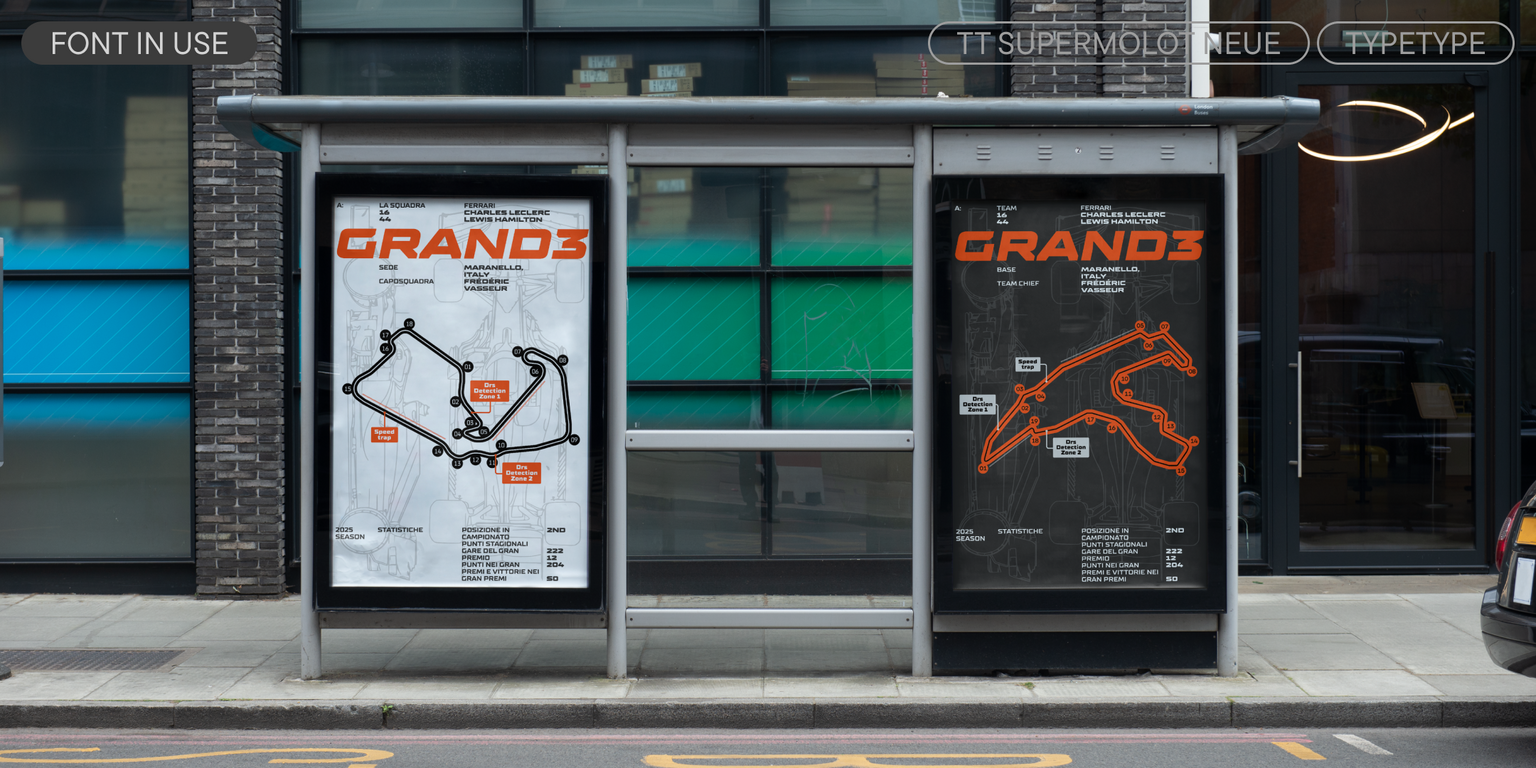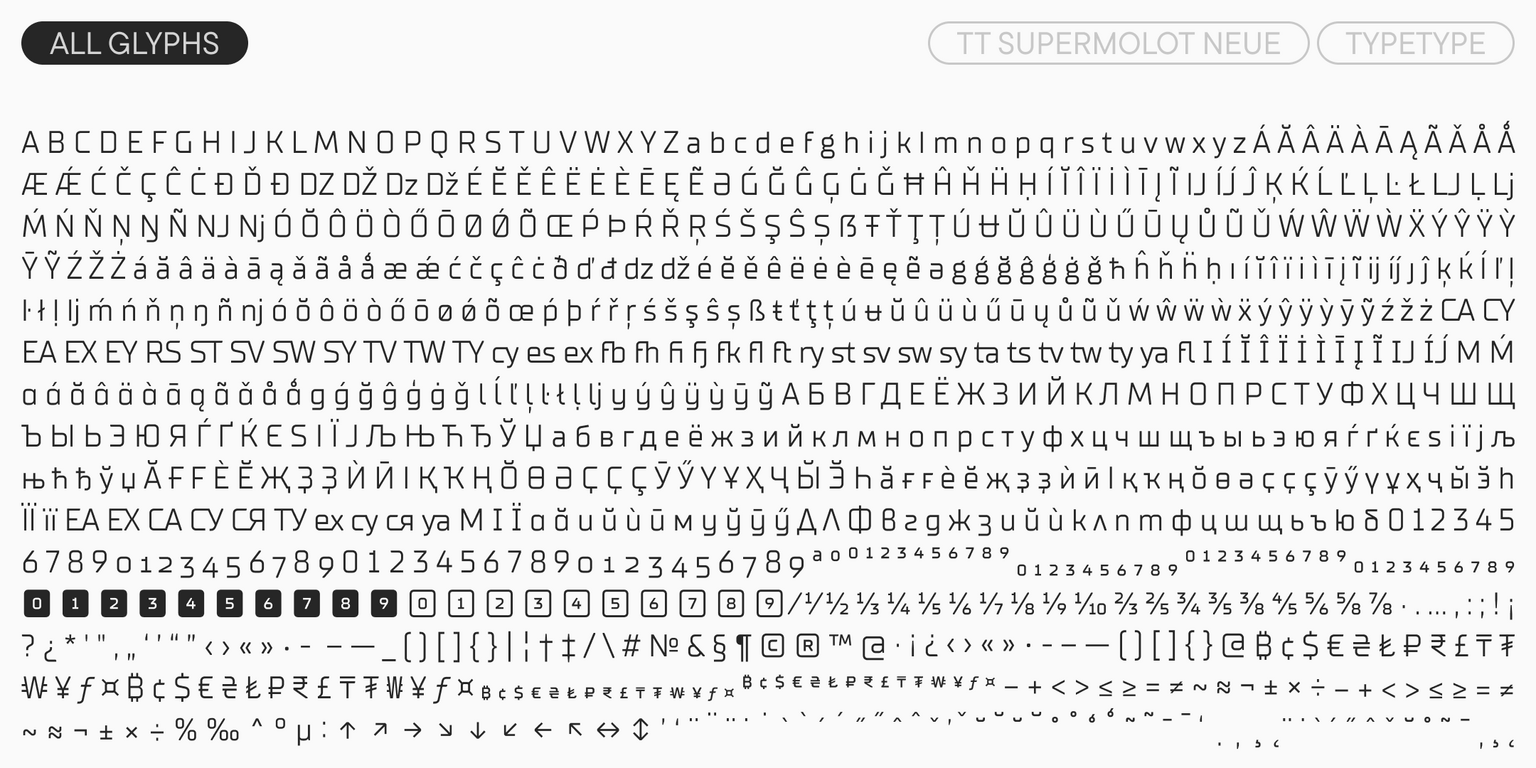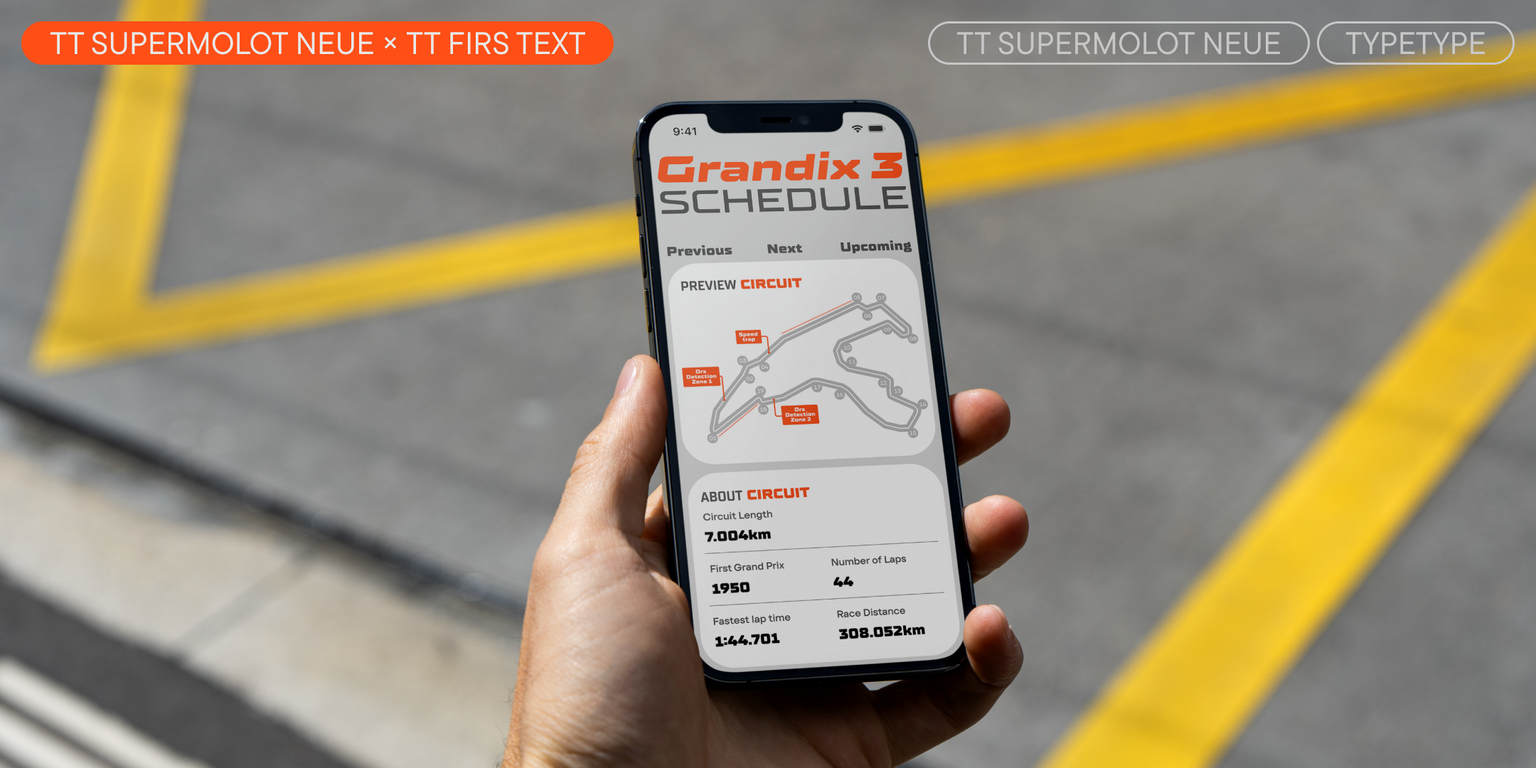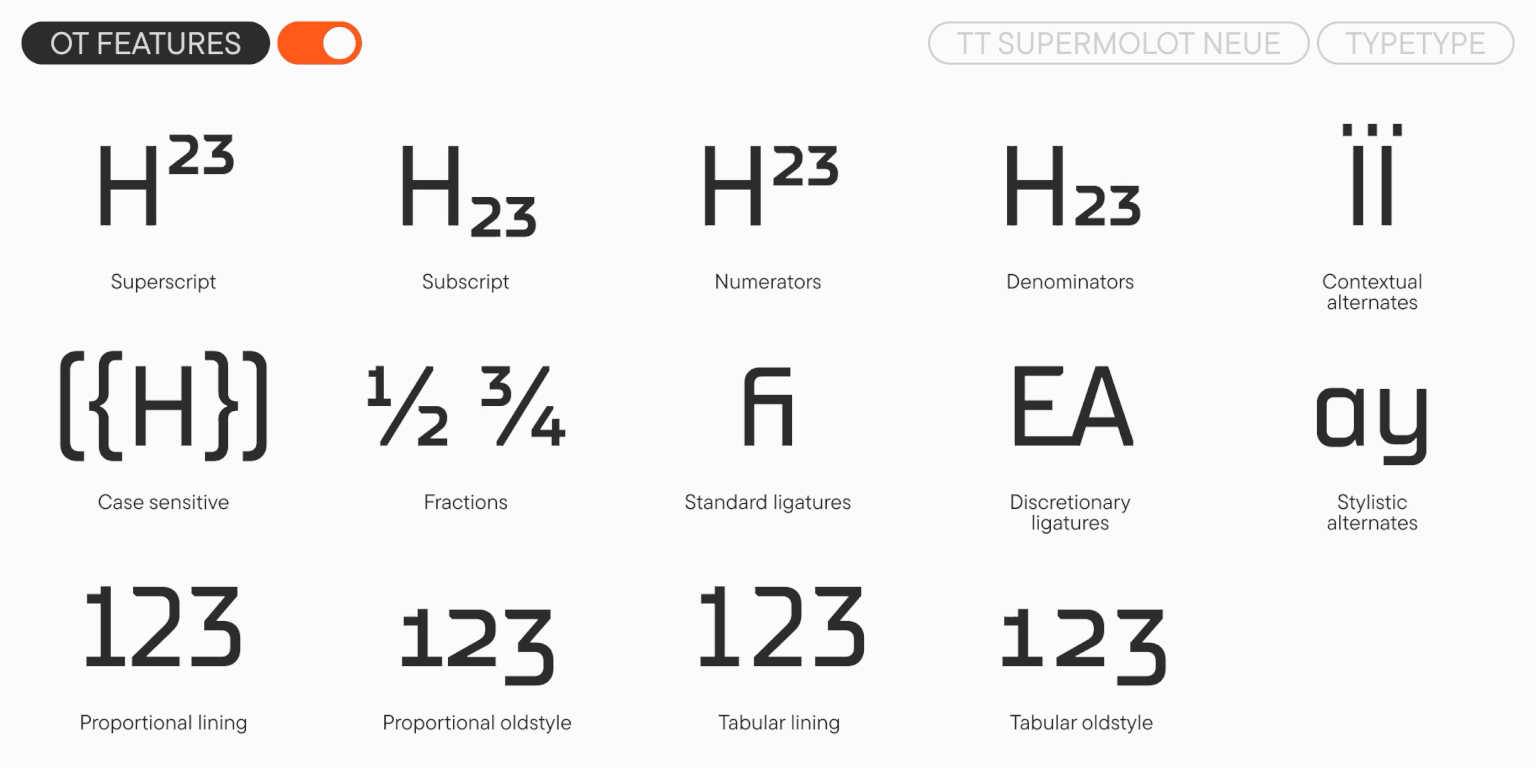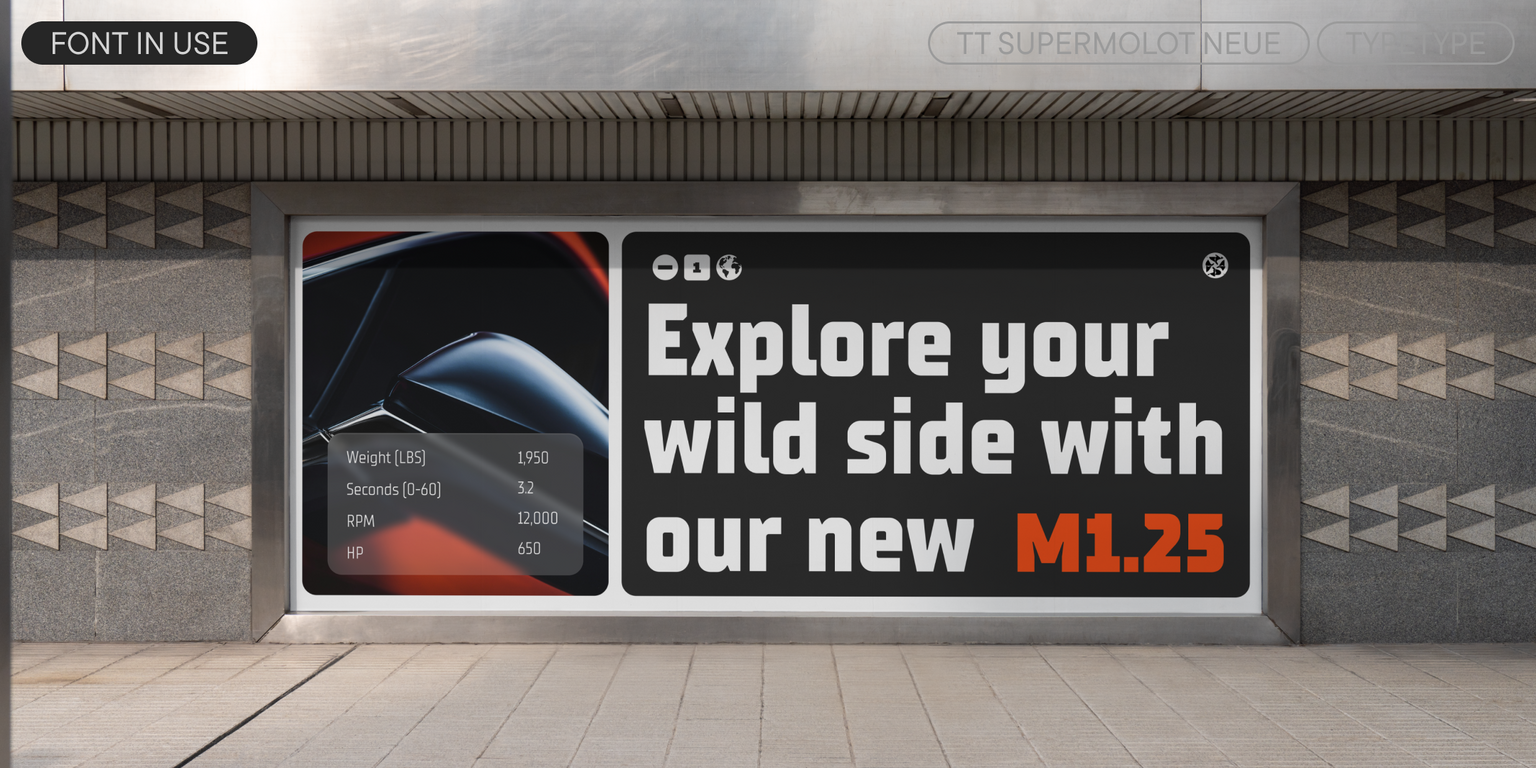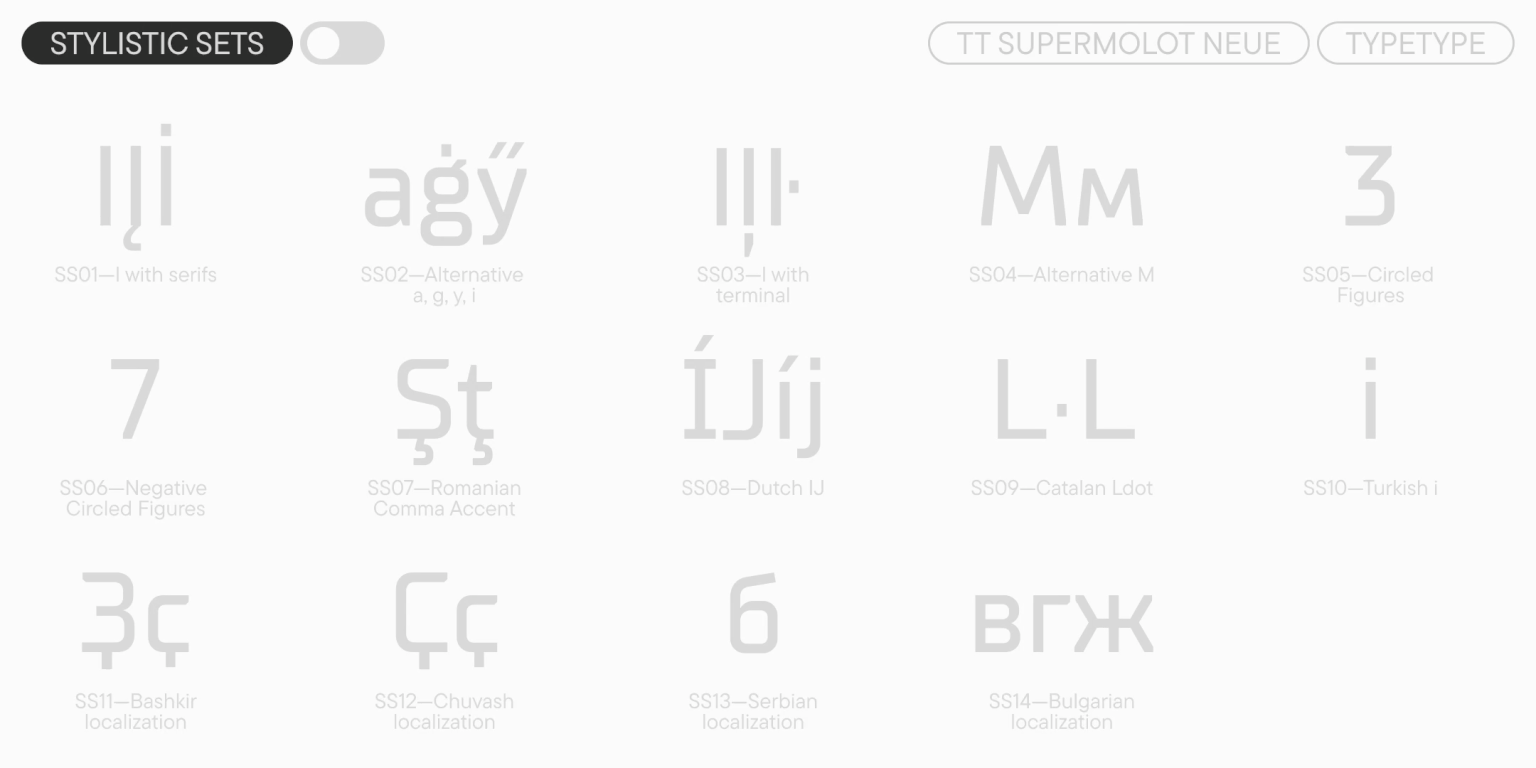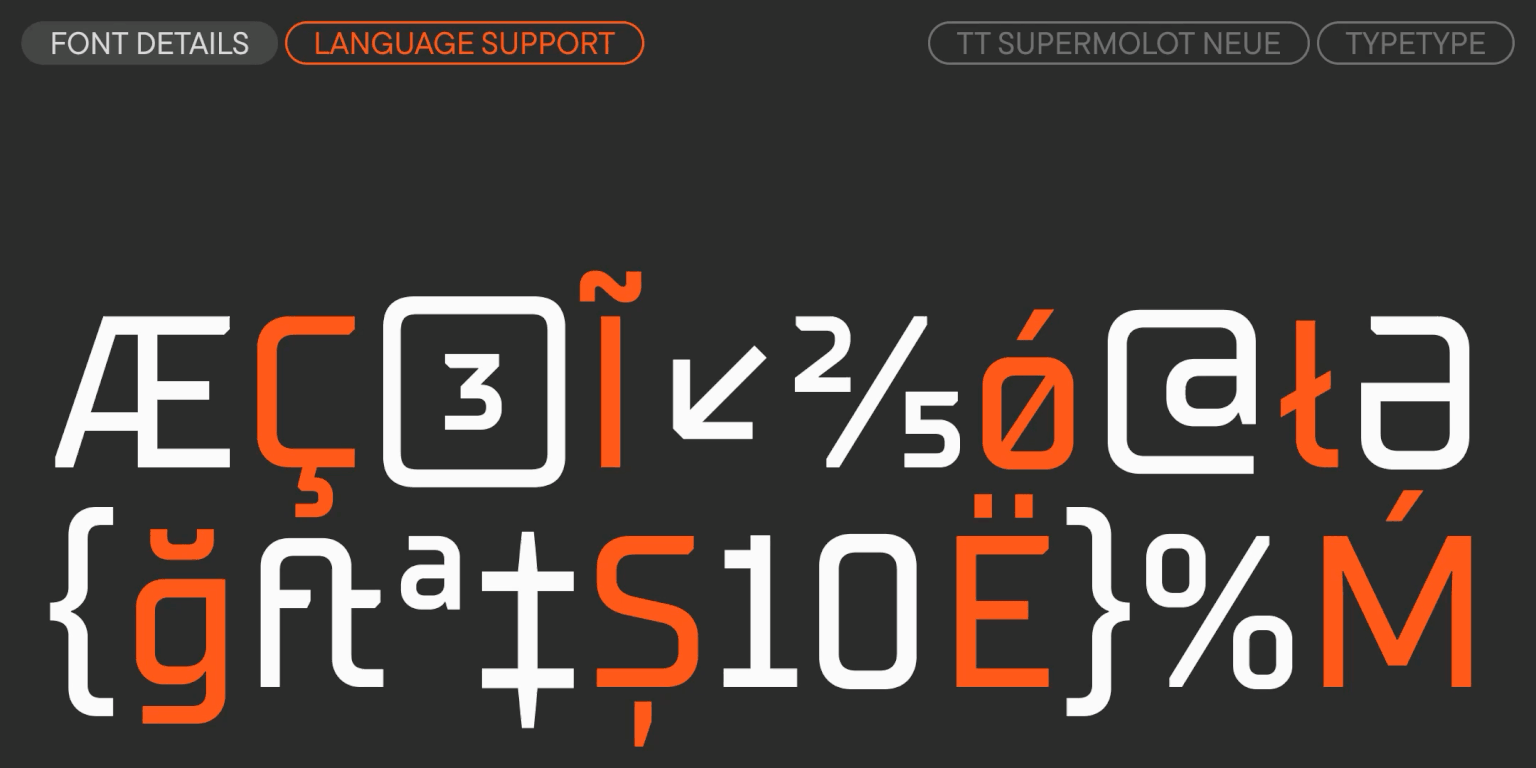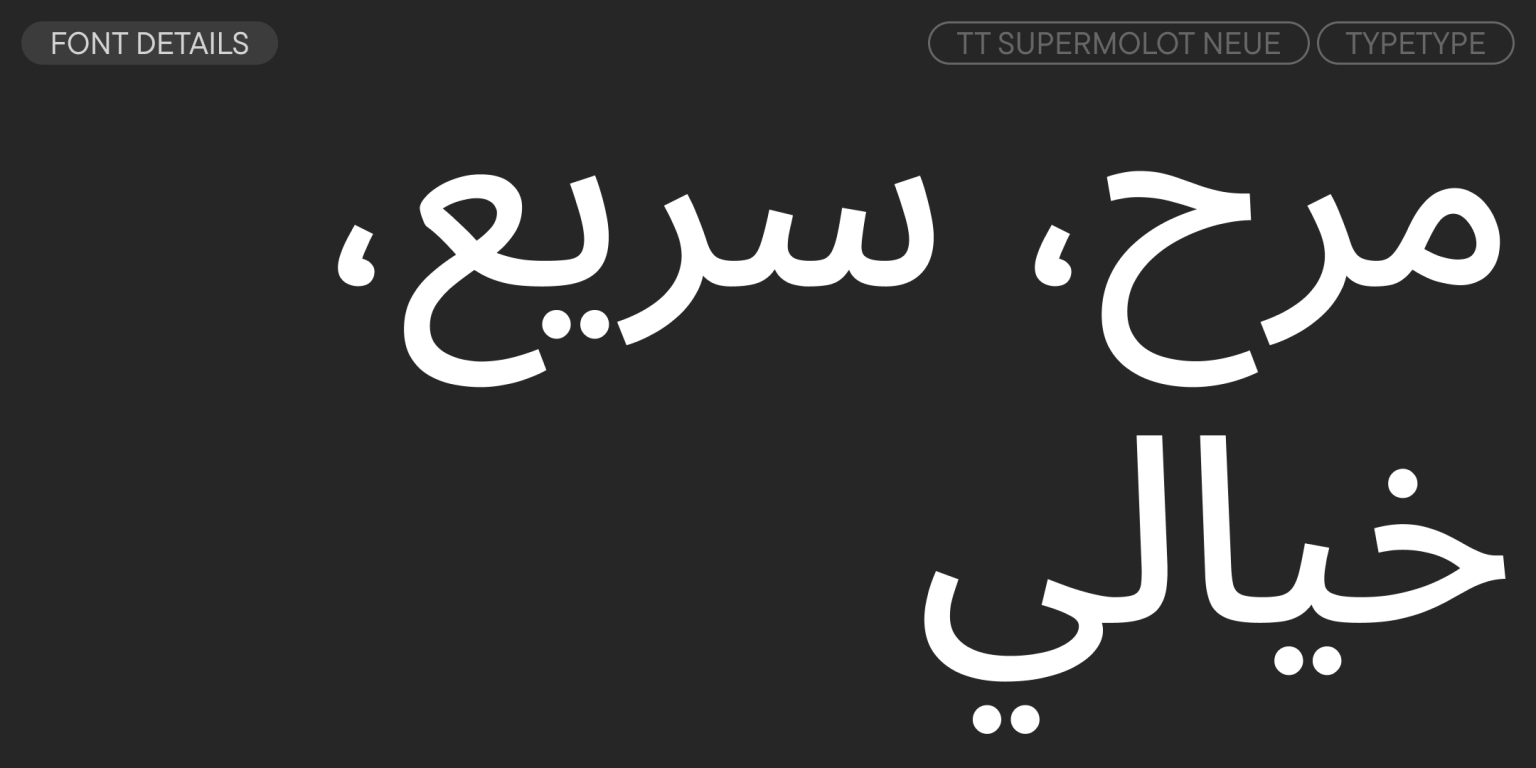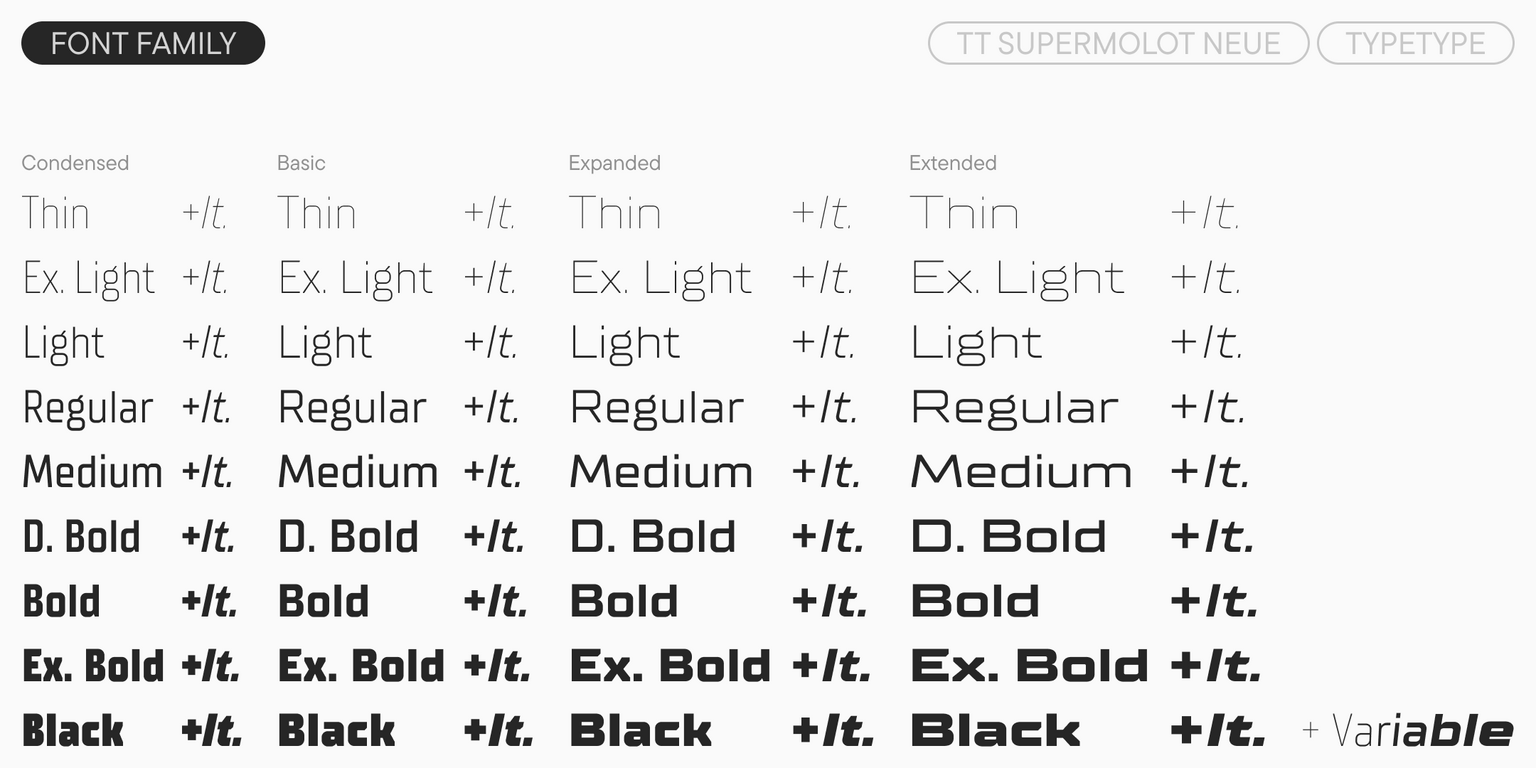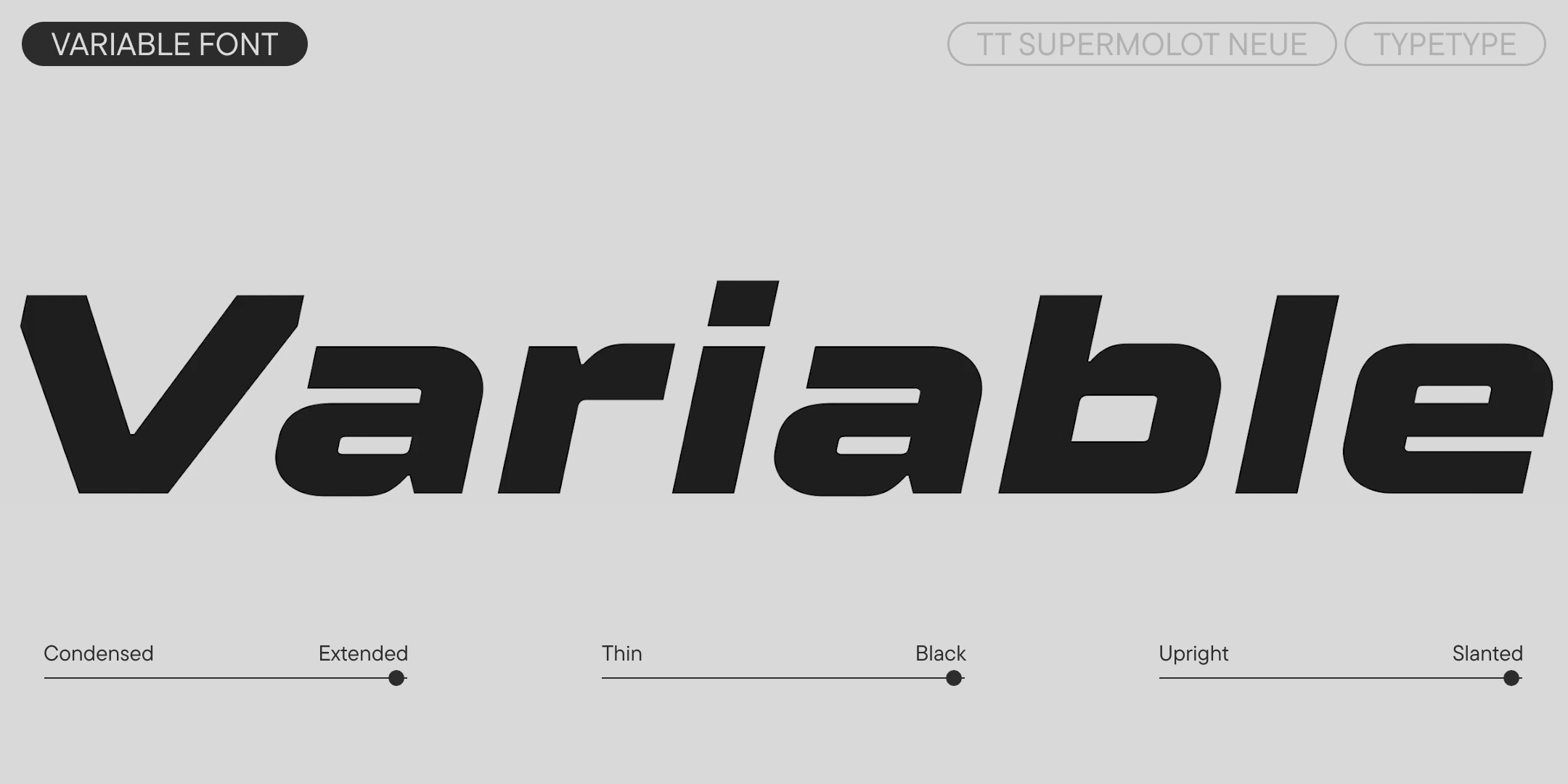
TT Supermolot Neue
TT Supermolot Neue is a technological modular sans serif with futuristic sensibility and extensive functionality. It combines striking personality with practical versatility.